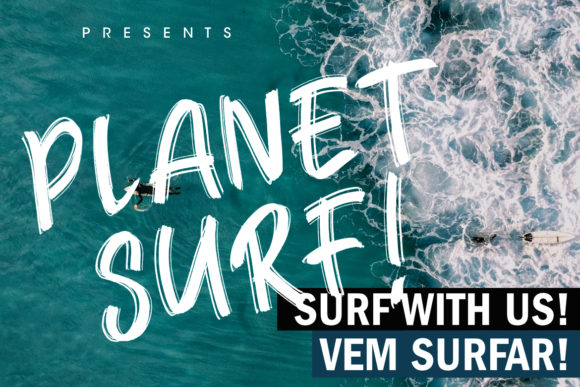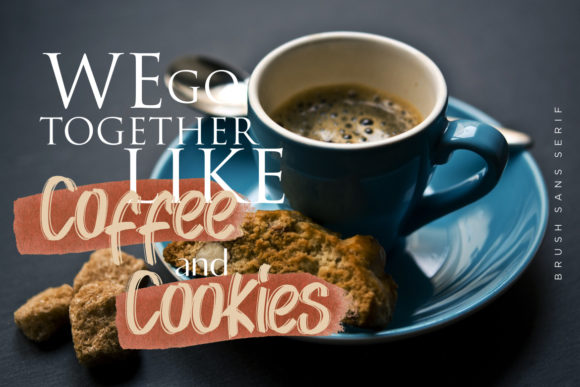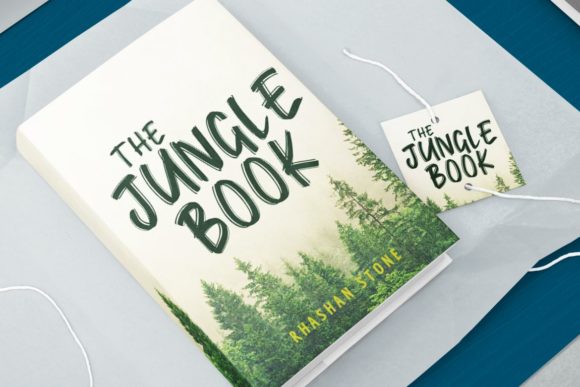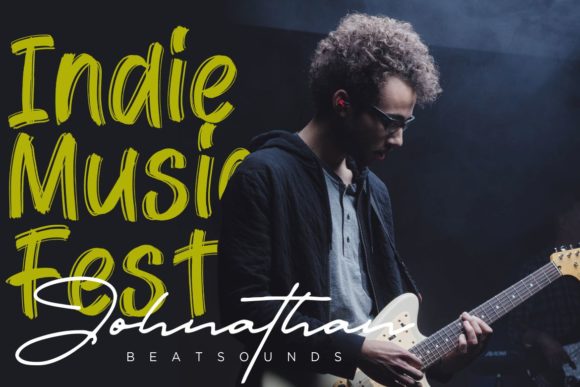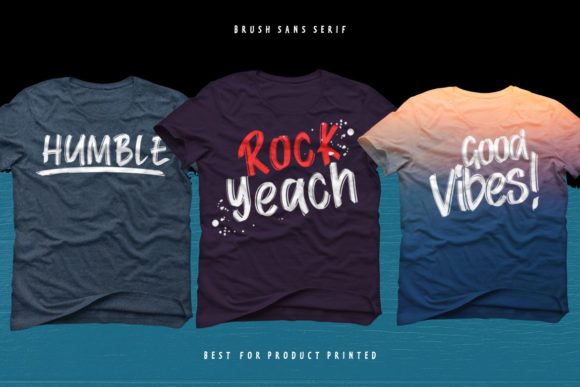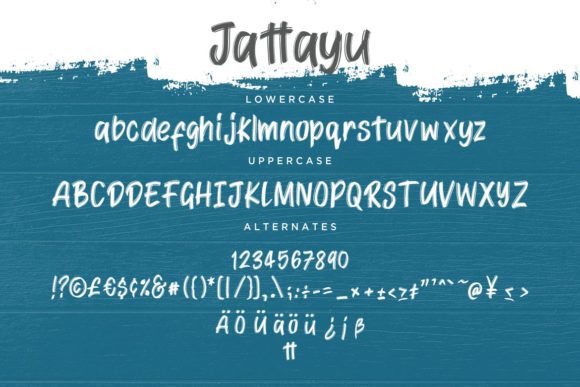
Introduction to Jattayu Font
Remember that moment when you’re working on a creative project and you need the perfect font to make it stand out? You scroll through hundreds of options, but none of them seem to capture the essence of your design. Well, we’ve got some good news for you! Introducing the Jattayu Font, a fun and cool handwritten font with a unique flavor that’s sure to elevate your design game.
Whether you’re a seasoned designer or just starting out, the Jattayu Font is a valuable resource that can add a personal touch to your work. With its high-quality design and transparent background, this font is perfect for creating eye-catching graphics, logos, and typography. And the best part? It’s available for free download, making it an accessible design resource for designers of all levels.
- High-quality design resource ideal for creative projects and graphic design applications.
- Unique, hand-drawn style with a transparent background, allowing for seamless integration with various design elements.
- Features a large character set, including uppercase and lowercase letters, numerals, and special characters, making it suitable for a variety of design projects.
- Perfect for designers and artists looking for a unique, high-quality font to elevate their creative project.
Honest Review: Jattayu Font
I recently stumbled upon the Jattayu Font while searching for a unique design resource for a creative project. Initially, I was drawn to its sleek and modern aesthetic, which I thought would be perfect for a futuristic concept.
What works well: ✨ The Jattayu Font is incredibly versatile, and its transparent background makes it easy to layer over other design elements. I also appreciate that it’s a free download, making it an excellent choice for designers on a budget. The font is well-structured and clean, with a wide range of weights and styles to choose from.
Limitations: ⚠️ While the Jattayu Font is high quality, I found that it can be a bit overused in certain contexts. Additionally, the font may not be suitable for projects that require a more traditional or classic look.
Overall impression: I’m impressed with the Jattayu Font’s potential, and I think it’s a valuable addition to any designer’s toolkit. However, I would recommend using it sparingly to avoid over-saturation. With the right project, this font can truly shine.
- High-quality, well-structured design
- Wide range of weights and styles
- Perfect for creative projects and modern concepts
Jattayu Font is a high-quality design resource perfect for creative projects. It offers a unique and elegant look that can be used in various applications.
Jattayu Font is perfect for creating invitations, wedding cards, and other creative projects that require a unique and elegant look.